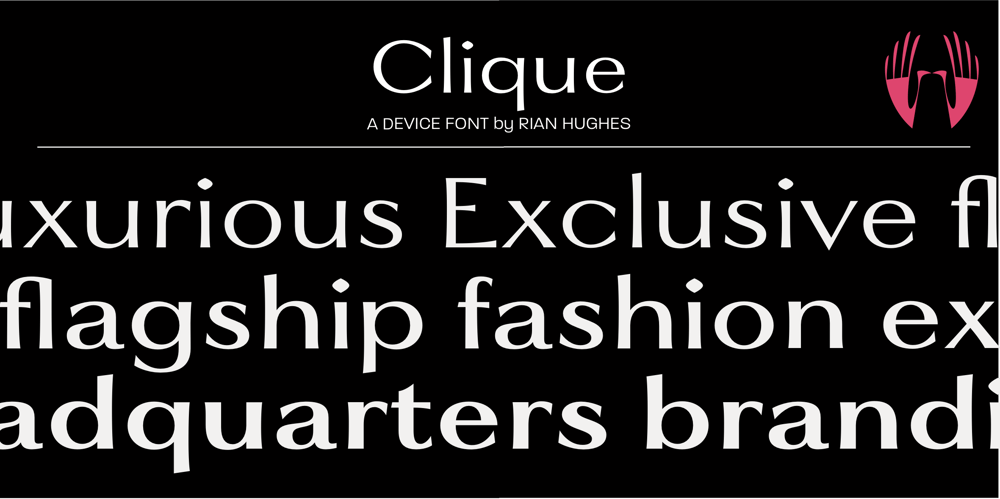
Clique Font Family was designed by Rian Hughes and published by Device. Clique contains 3 styles and family package options. A clean elegant subtly flared serif in three weights suitable for high-fashion and luxury brand use.